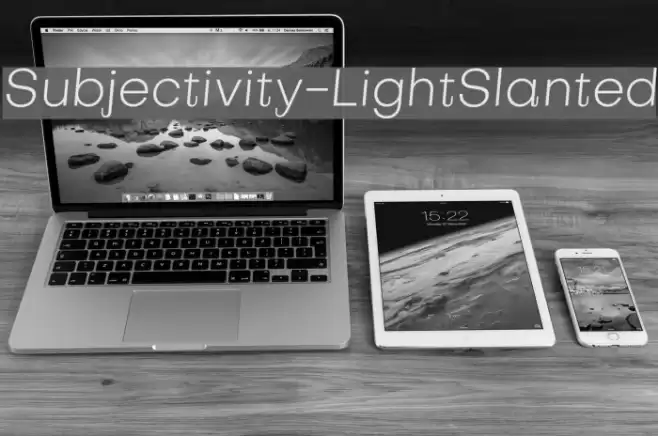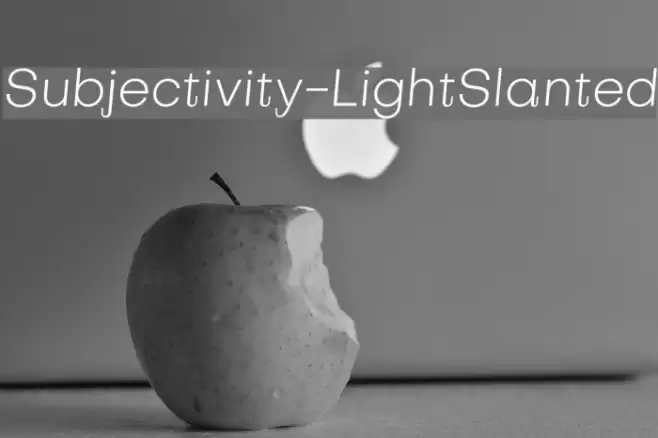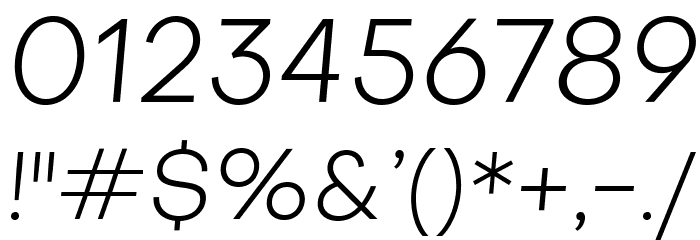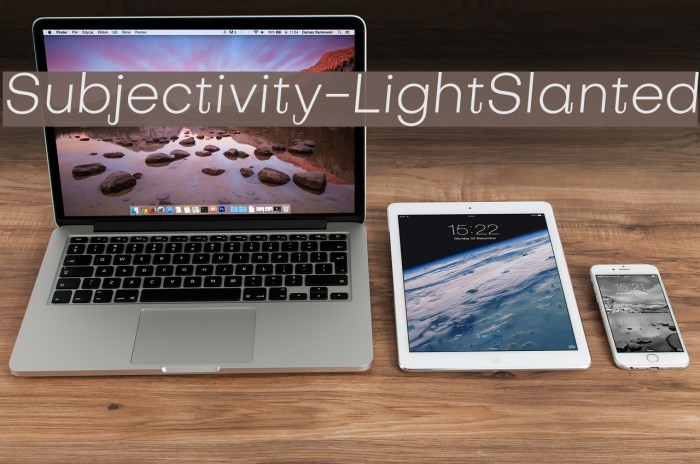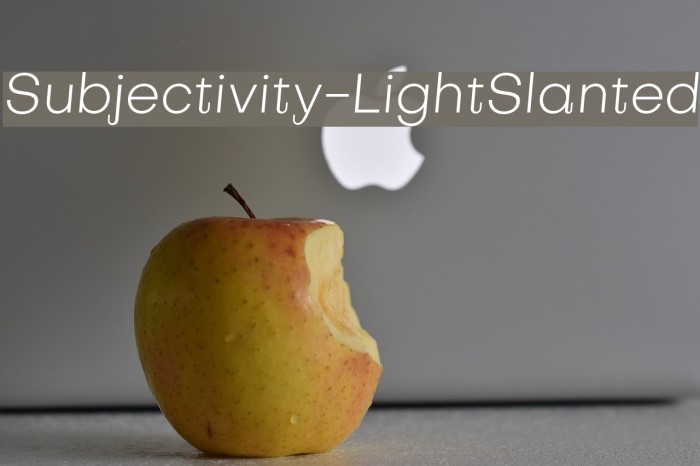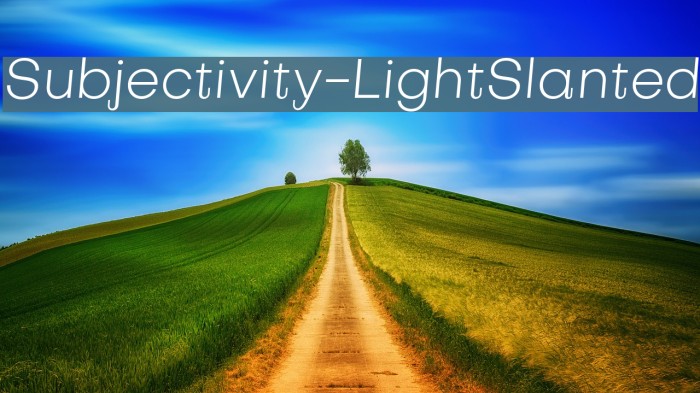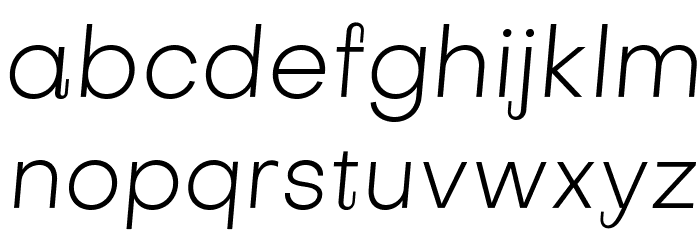
Subjectivity-LightSlanted Font
Subjectivity-LightSlanted Description
This font features a clean and modern aesthetic with a slight slant, giving it a dynamic and forward-moving appearance. The characters are crafted with a minimalist approach, emphasizing simplicity and readability. The uppercase and lowercase letters maintain a consistent style, with smooth curves and a uniform stroke width. The numerals are clear and distinct, making them easily legible. Special characters are well-integrated, maintaining the overall sleek design. This font's subtle elegance makes it versatile for various applications.
A modern, slanted font with clean lines and a minimalist design from Uncategorized fonts.
- Proposed Projects: Ideal for branding, editorial design, digital interfaces, and advertising campaigns.